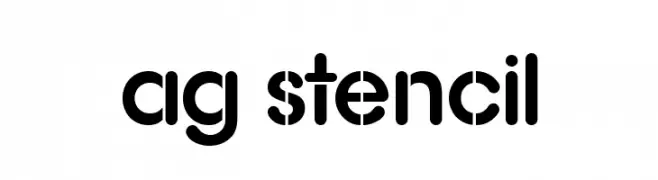
A modern, rounded font with geometric structure and even spacing.
A bold, rounded font with a playful and chunky style.
A modern, rounded sans-serif font with a minimalist design.
A bold, modern sans-serif font with geometric structure and excellent readability.
A modern, light sans-serif font with clean lines and excellent readability.
A clean, modern sans-serif font with consistent stroke width and balanced spacing.
A clean, modern sans-serif font with a semi-bold weight and excellent legibility.
A modern, thin sans-serif font with clean lines and elegant proportions.
A bold, decorative font with unique zigzag patterns in uppercase letters.
A tall, narrow serif font with a blend of classic and modern elements.
A bold, distressed font with a rugged, weathered appearance.
A collection of abstract and geometric symbols with a mystical and historical flair.
A bold, playful font with high contrast and rounded shapes, perfect for decorative use.
A playful, casual handwritten font with fluid strokes and a friendly appearance.
A playful, handwritten cursive font with fluid, connected strokes.
A bold, Art Deco-inspired font with geometric shapes and intricate patterns.
A bold, decorative font with an Art Deco style and intricate patterns.
A bold, artistic font with high contrast and playful curves.
A bold, flowing font inspired by the Art Nouveau movement, featuring elegant curves and organic shapes.
A decorative Art Nouveau font with bold contours and intricate, organic shapes.
An elegant, elongated font with Art Nouveau-inspired curves and fluidity.
A bold, decorative font inspired by the Art Nouveau style with flowing, organic shapes.
An ornate Art Nouveau font with decorative uppercase letters and stylized lowercase characters.
A decorative pictogram font featuring artifact and tribal-inspired symbols.
A bold, decorative font with playful curves and high contrast.
A pictogram dingbat font with hand-drawn illustrations and landmarks.
A pixelated, retro font inspired by early digital displays.
A bold, distressed font with a grunge texture and star pattern.
A bold, framed font inspired by traditional Asian calligraphy with a modern twist.